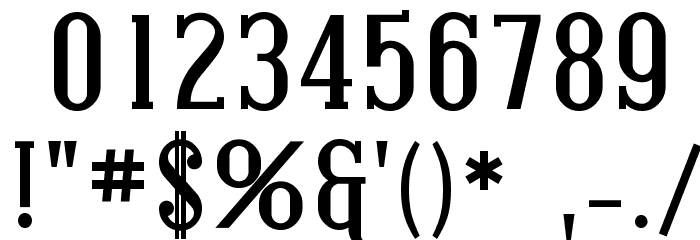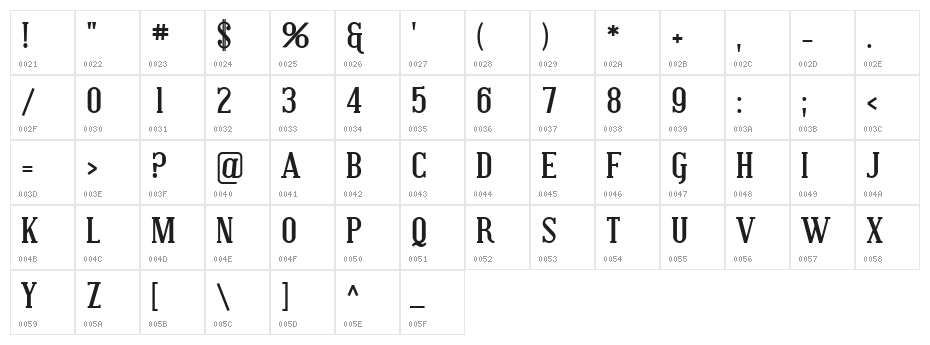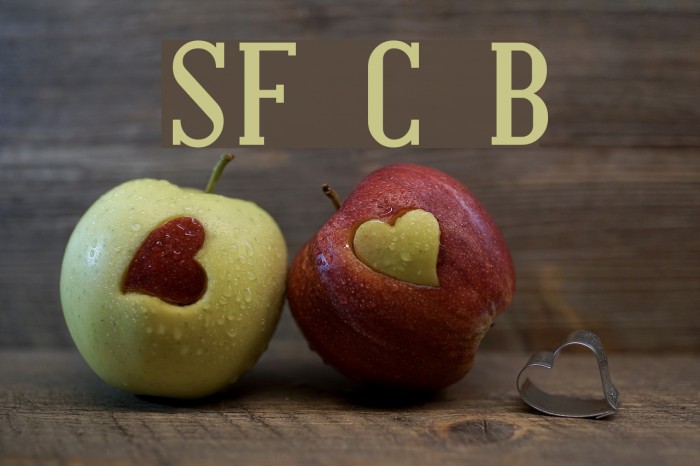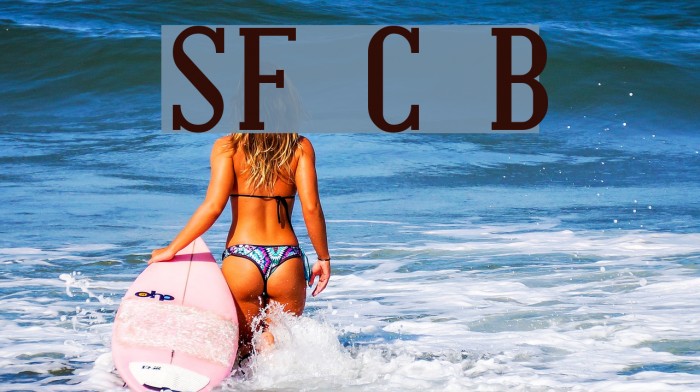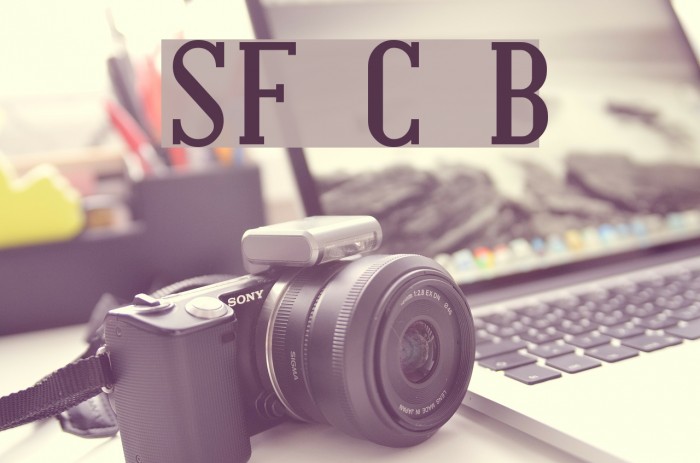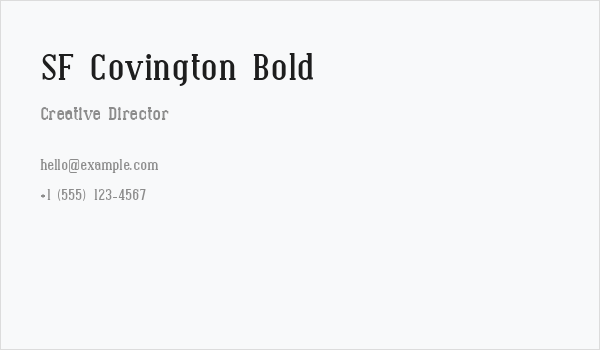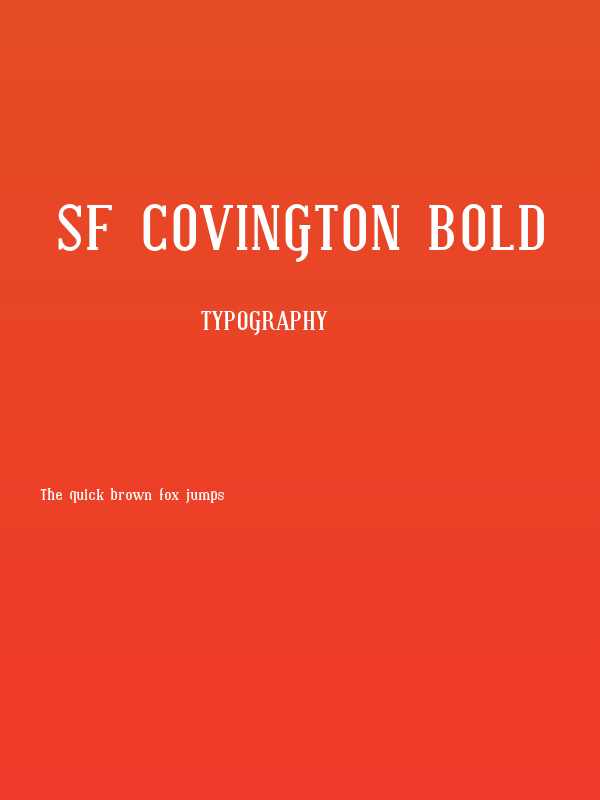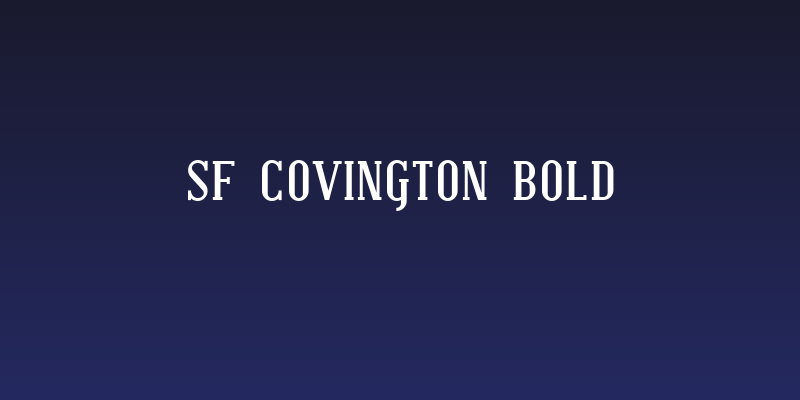
SF Covington Bold Font
SF Covington Bold Description
This font exhibits a bold and commanding presence with its strong, thick strokes and classic serif design. The uppercase letters are tall and slightly condensed, giving a sense of authority and tradition. The lowercase characters maintain a consistent style, with smooth curves and sharp serifs that enhance readability. Numbers are robust and align well with the overall aesthetic, while the special characters are distinct and well-defined. The font's overall appearance is both timeless and versatile, making it suitable for a variety of applications where clarity and impact are essential.
| Use Case | Headlines, Logos, Editorial design |
| Proposed Projects | This font is perfect for projects requiring a strong visual impact, such as headlines, posters, branding materials, and editorial design. Its classic style also suits formal invitations and certificates. |